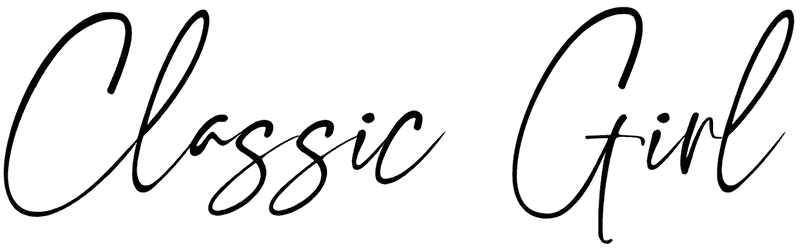
Classic Girl Font
Classic Girl is a script font with a natural color and pleasant nature that works very well for girly and feminine designs. This handwritten font will be ideal in marketing campaigns and wherever there is a need to communicate closely with people, and it can leave a lasting impression.
This font’s feminine and elegant style has made many designers interested in the field of fashion and clothing, or active in stationery packaging, choose it for branding, despite its illegibility.